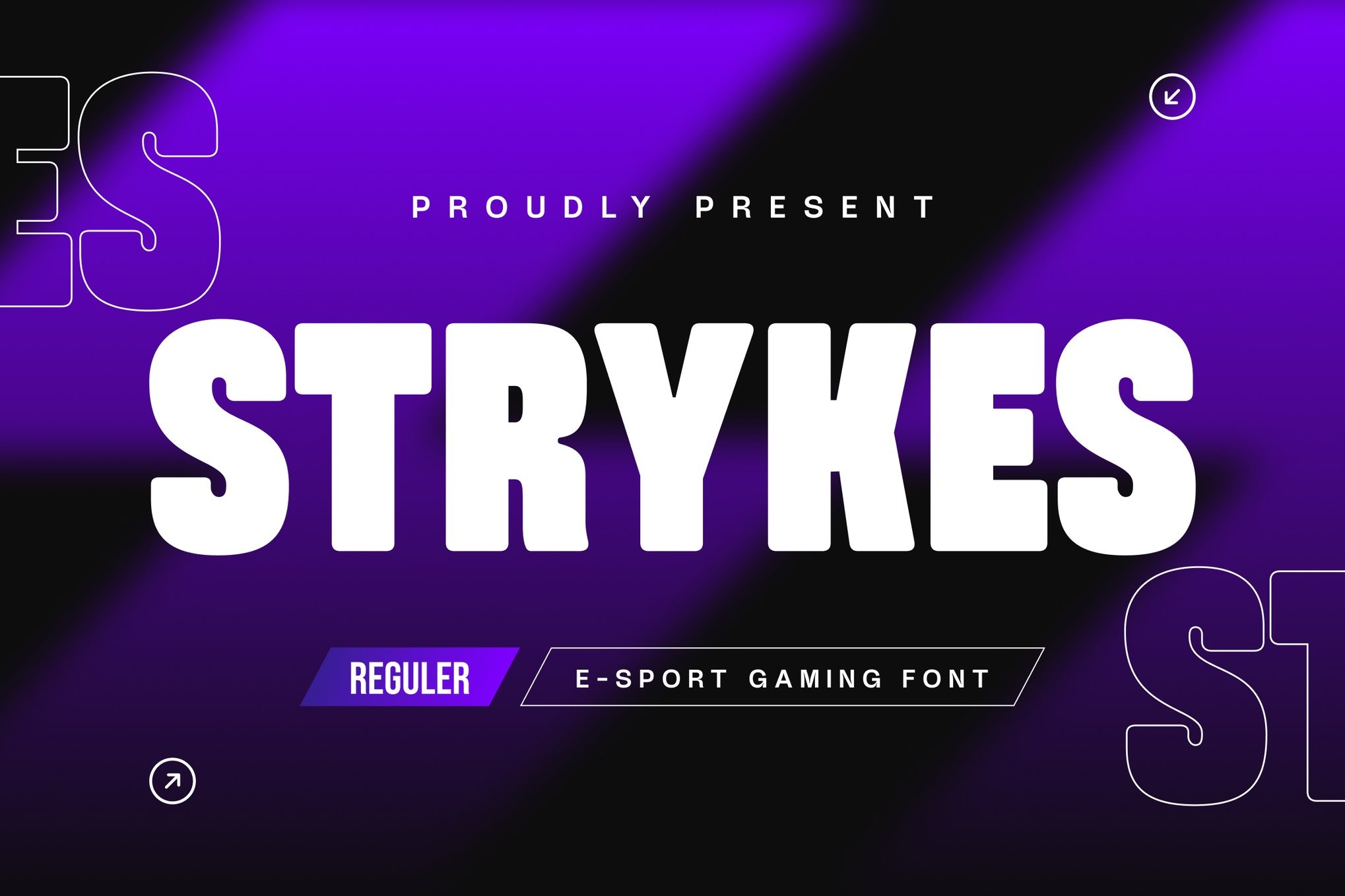
Strykes Font
Strykes Font is a clean and thoughtfully built typeface that works seamlessly for both professional branding and everyday creative uses. Strykes is a bold display font featuring strong condensed shapes and sporty modern aesthetics. Perfect for gaming, esports, posters, branding, sportswear, automotive, and urban designs, this font creates powerful visual impact with clean readability. Strykes delivers energetic typography that feels dynamic, aggressive, contemporary, and highly attention-grabbing across creative professional projects.